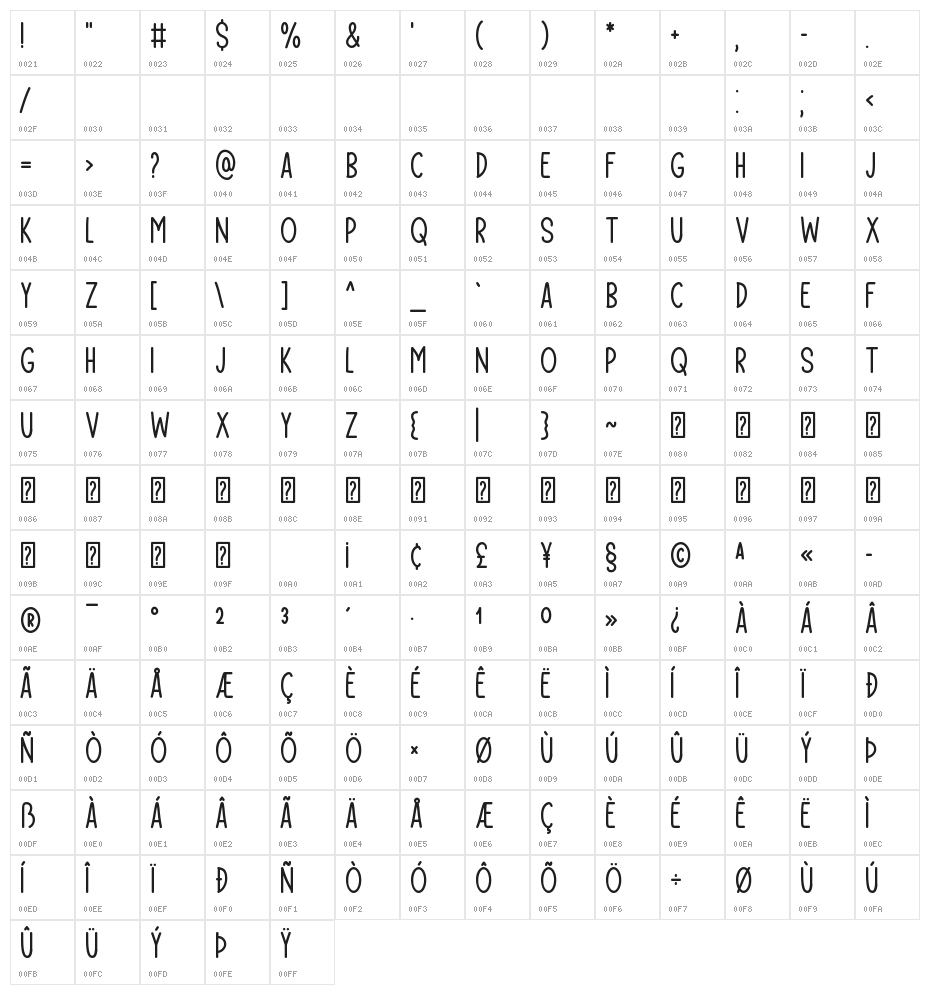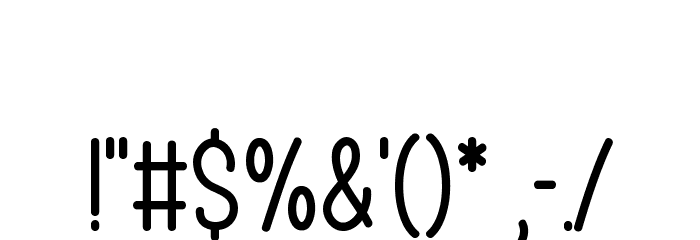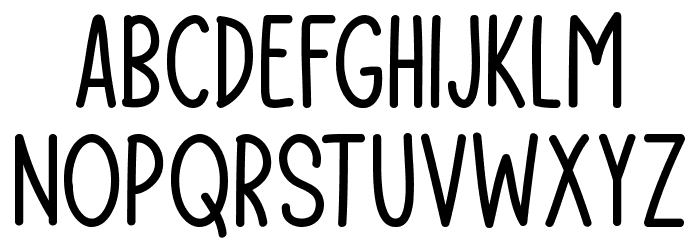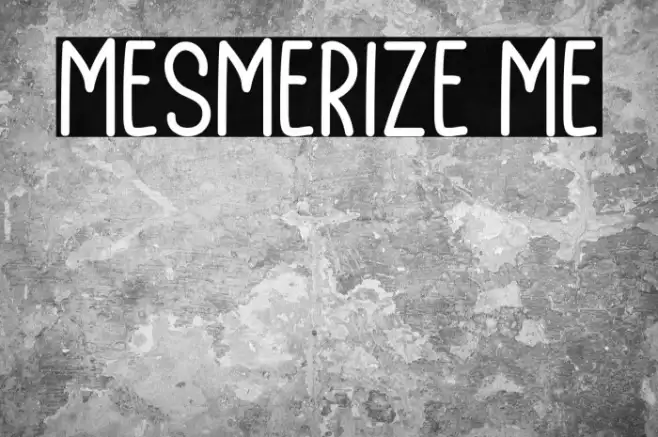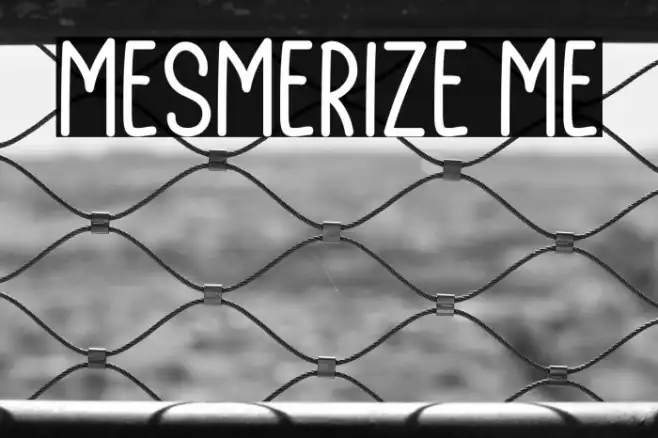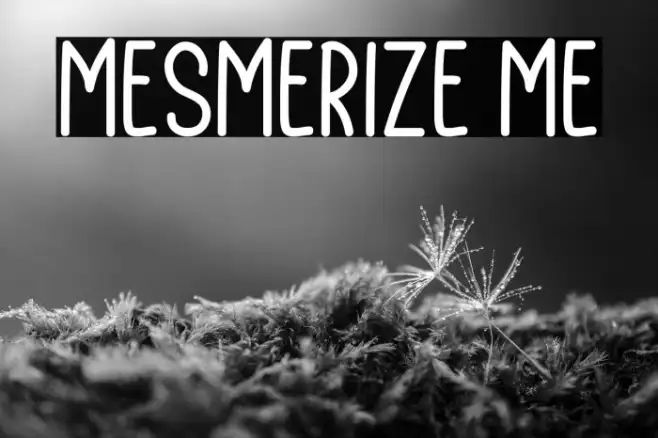
Mesmerize Me Font
Mesmerize Me Description
A playful, handwritten font with rounded edges and a casual feel.
| Use Case | Headlines, Informal text, Branding |
| Proposed Projects | Greeting cards, children's books, casual branding. |